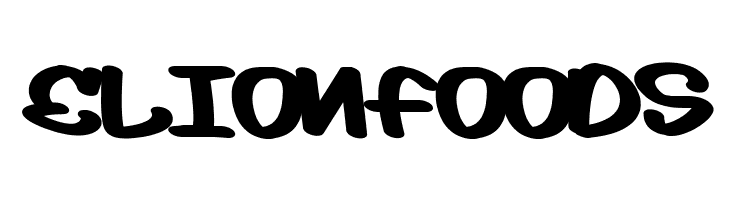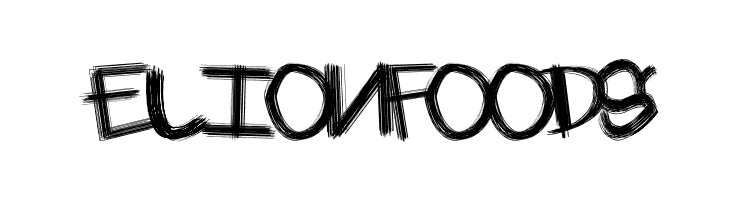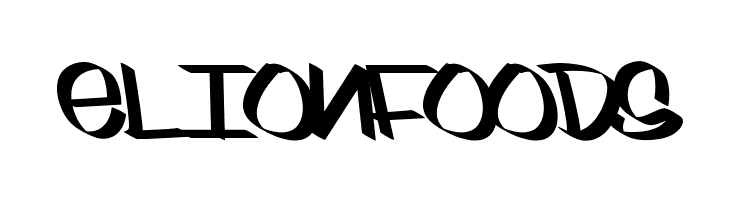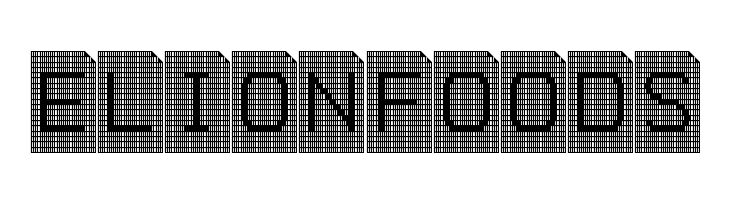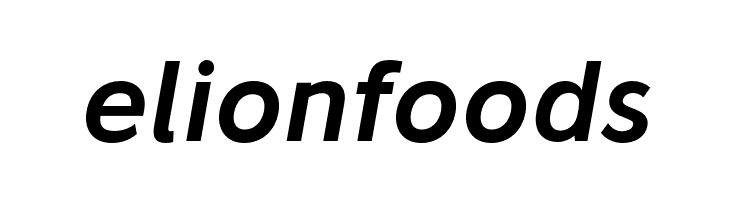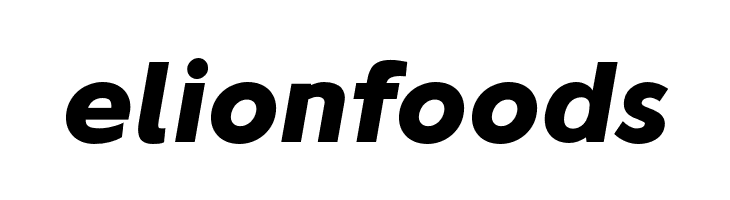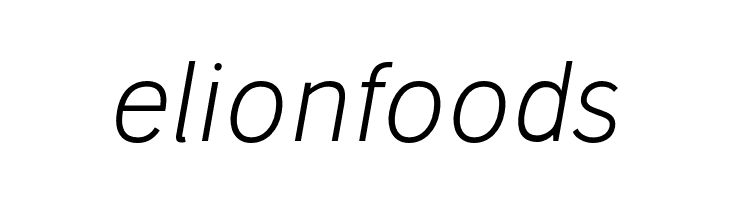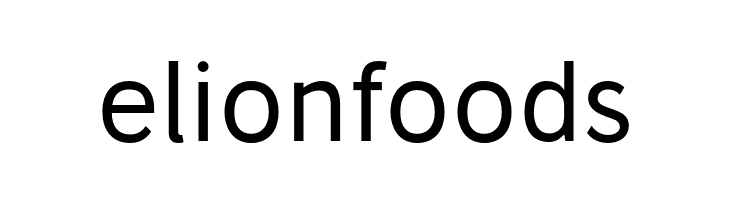
A bold, playful handwritten font with thick, rounded strokes and a lively appearance.
A bold, scratchy, hand-drawn font with a dynamic and textured appearance.
A bold, graffiti-inspired font with exaggerated curves and sharp angles.
A bold, graffiti-inspired font with sharp, angular lines and dynamic energy.
A bold, pixelated font with a retro-futuristic, grid-like design.
A bold, dynamic handwritten font with fluid, energetic strokes.
A modern, semi-bold italic font with sleek curves and clean lines.
A bold and italic font with a modern, dynamic style.
A sleek, modern, light italic sans-serif font with elegant slant and clean lines.
A clean, modern sans-serif font with balanced proportions and consistent stroke width.